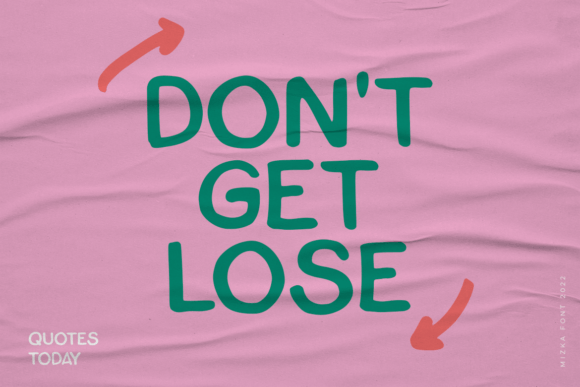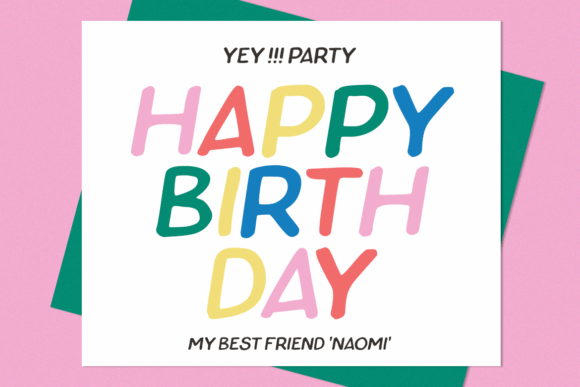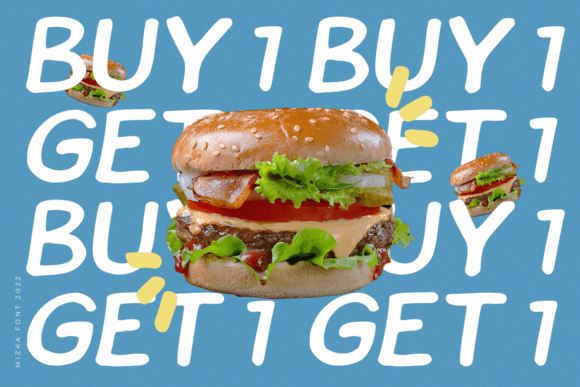
About Mizka Font
Introducing Mizka, a versatile, stylish, and playful handwritten font designed for a wide range of creative applications. Whether you’re working on greeting cards, headlines, or any other project, Mizka is here to add a clean and exquisite feel to your designs.
The versatility of Mizka allows it to adapt seamlessly to different design contexts. Its stylish and playful nature makes it suitable for a variety of creative projects, where you want to infuse a touch of personality and charm. Picture Mizka on greeting cards, where it adds a playful and delightful touch to your messages. Envision it in headlines, where its clean and stylish appearance creates an eye-catching impact.
The clean and exquisite feel of Mizka contributes to its adaptability, making it a valuable asset in your design toolkit. Whether used for print or digital media, Mizka’s versatility shines through, adding a touch of sophistication to your creative endeavors.
Visualize Mizka becoming an essential part of your creative projects, transforming them into visually appealing and stylish expressions. Picture it on packaging, where it adds a playful and stylish element to your product presentation. Envision it in social media graphics, where Mizka’s clean and versatile design enhances your visual storytelling.
In conclusion, Mizka is not just a font; it’s a versatile and playful design asset that elevates your creative projects. Download it today and experience how it transforms your designs into clean, stylish, and exquisite expressions. Make Mizka a cherished addition to your font collection, and let it be the key to unlocking a world of creative charm in your designs!